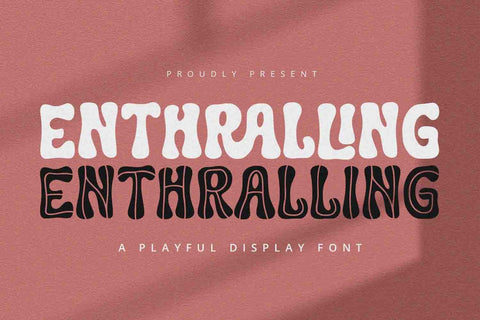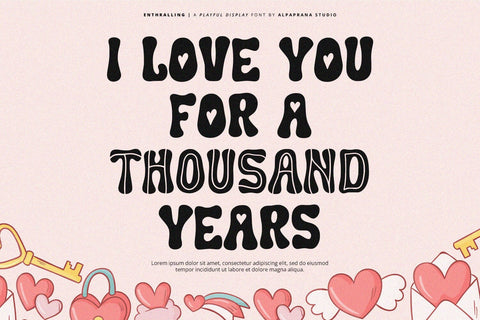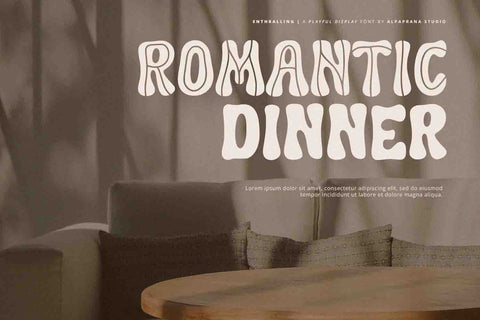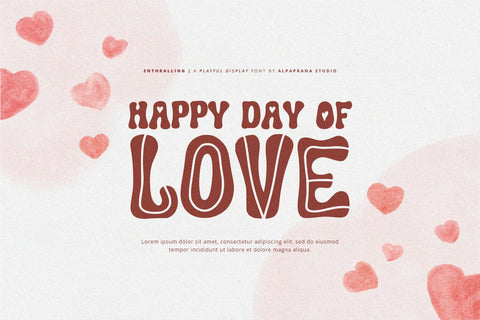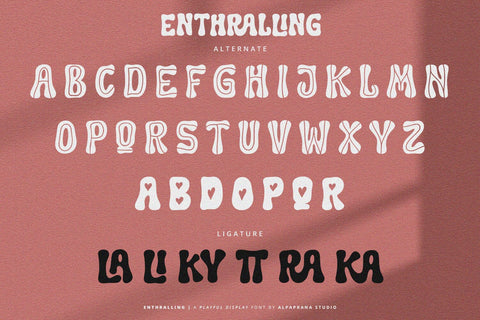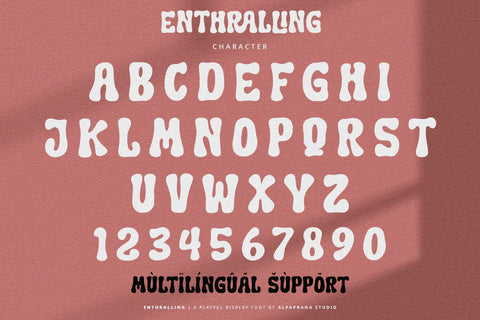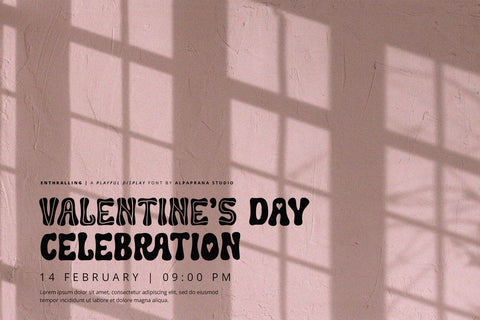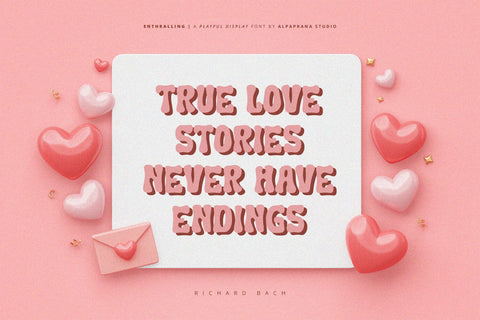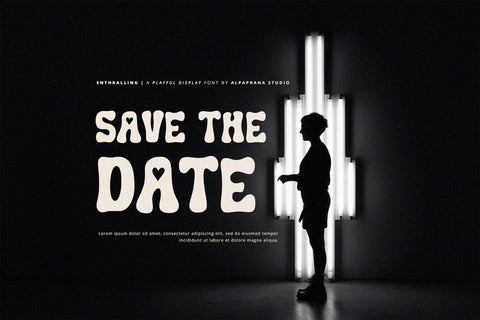
Enthralling - Display Font
Enthralling is a display font with romantic and casual feels. It will be perfectly used for Branding, Logo Design, Lettering, Logotype, Clothing, Poster, magazine, packaging, posters, shopping bags, t-shirts, book covers, photography, special events and other design project.